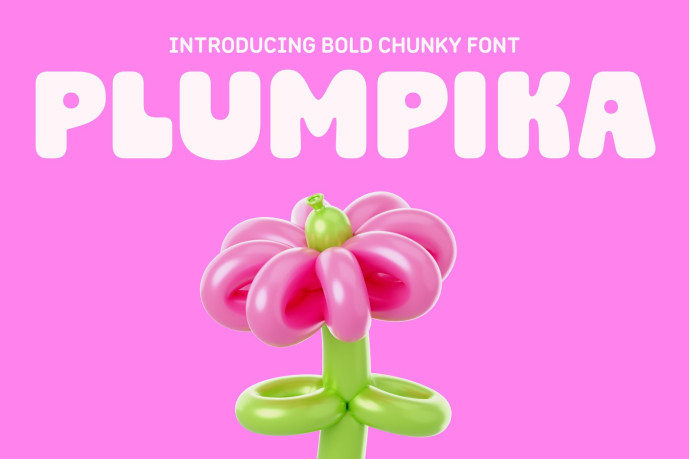
Plumpika Font
Designer: Slidehack
Plumpika Font is a cute bubbly display font featuring soft rounded shapes and playful retro charm. Perfect for kids branding, packaging, posters, social media, merchandise, and creative projects, this font adds cheerful personality and fun energy to every design. Plumpika delivers bold readability with whimsical aesthetics that instantly capture attention beautifully.